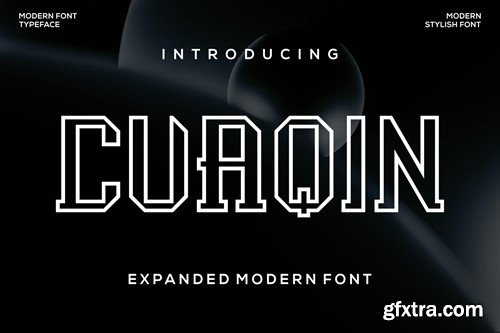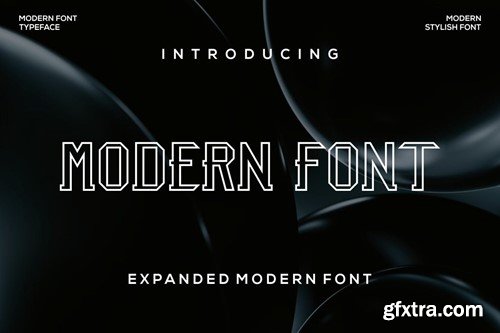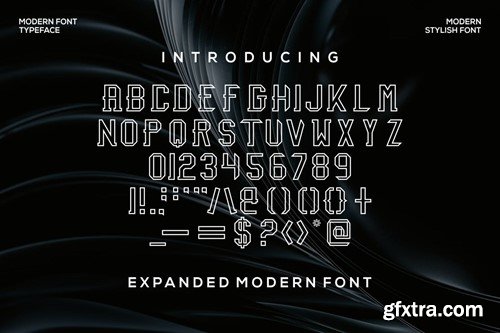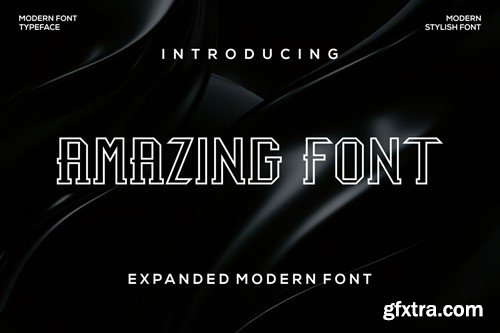
Cuaqin Font V5AQWEZ
Cuaqin Font
Introducing our new product Cuaqin Font - Modern Fonts Cuaqin Font - Modern Font is a bold and authentic display font. This font is suitable for any branding projects such as logos, esport and more. extraordinary in many contexts. available *otf *ttf